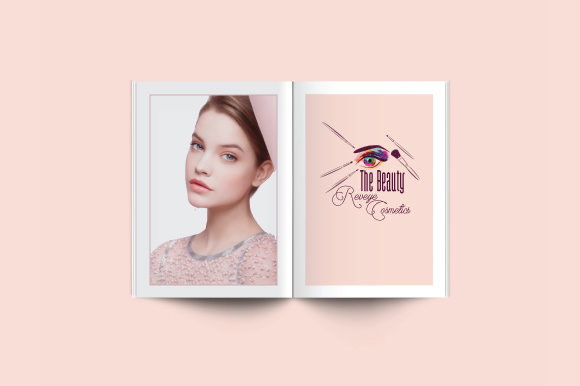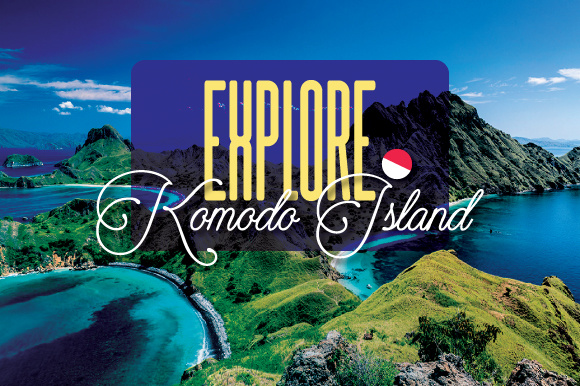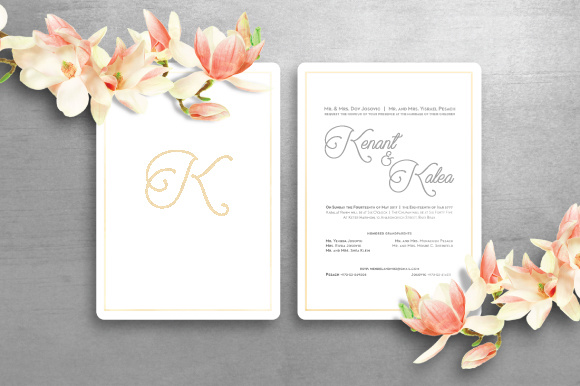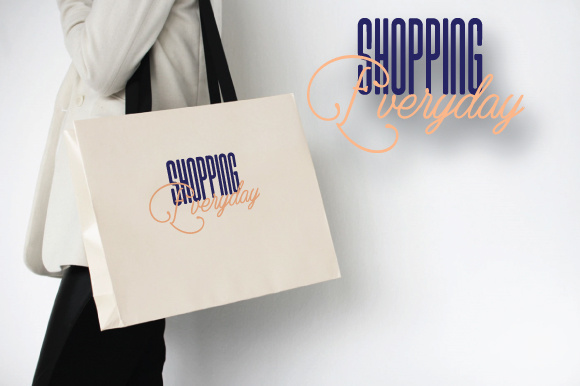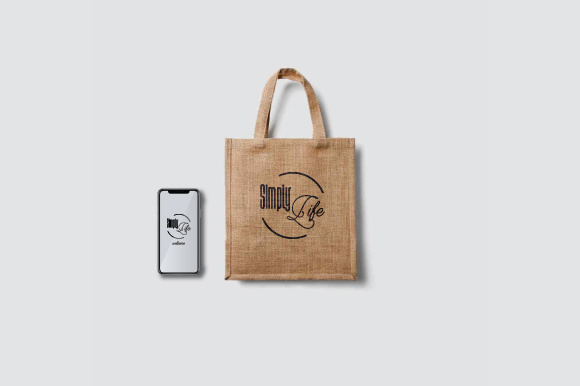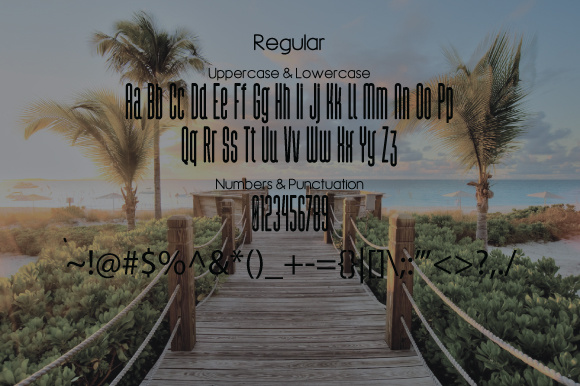
Introduction to Muhaqu Duo Font
The Muhaqu Font Duo is a combination of a sans and a script font.
The Muhaqu Font Duo can be used for many different types of project, such as invitation, branding, brochure, digital marketing, etc .
Key Features of Muhaqu Duo Font
Why Choose Muhaqu Duo Font?
Muhaqu Duo Font offers exceptional quality and versatility, making it a valuable addition to your design toolkit. Whether you’re creating for personal projects or commercial use, Muhaqu Duo Font delivers professional results.